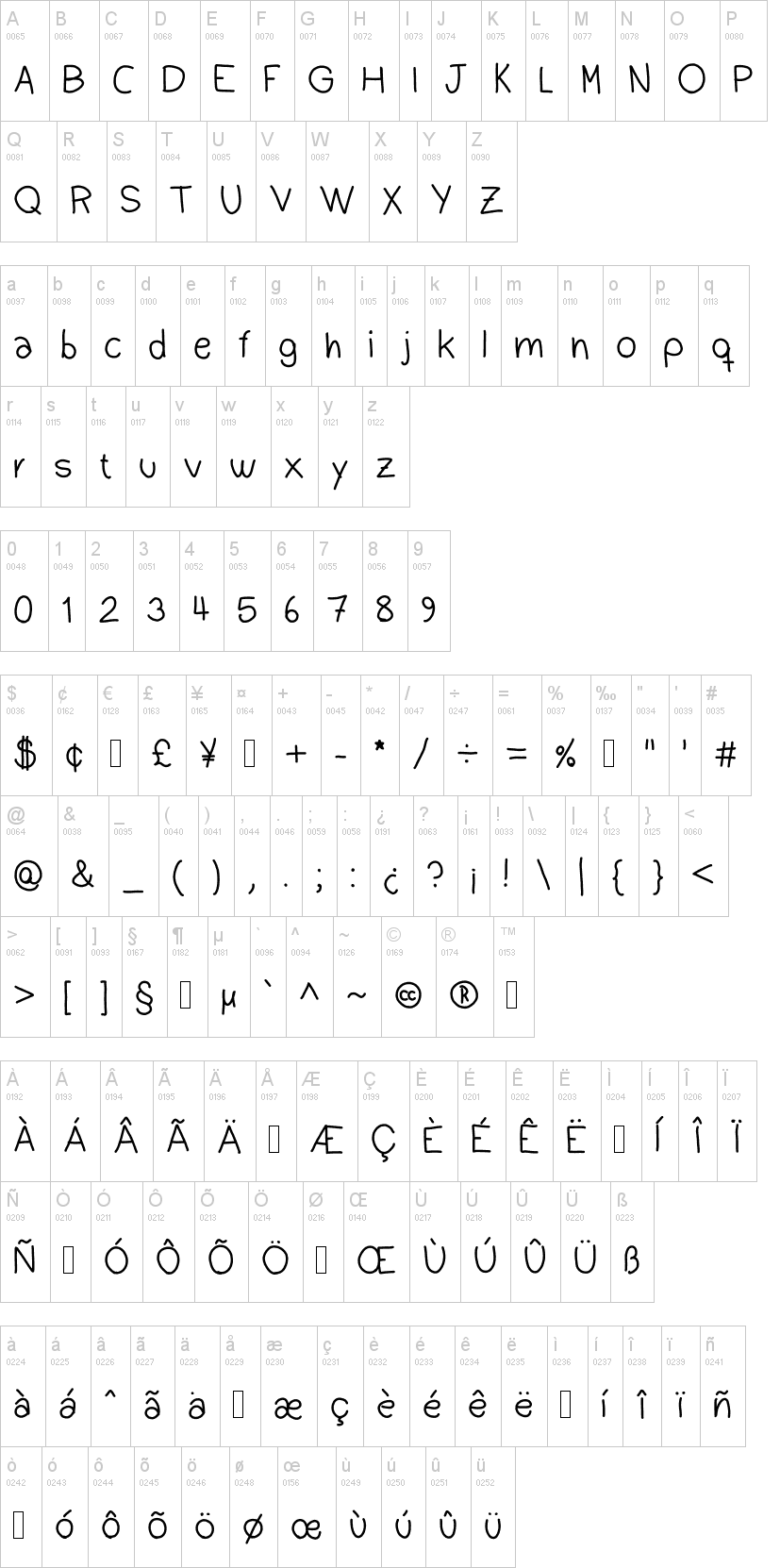
Note of the authorDespite its name, its a very childish font... And it's free, no royalties! (I would appreciate a humble donation to PayPal if you like the font :) )